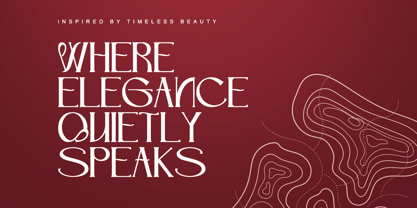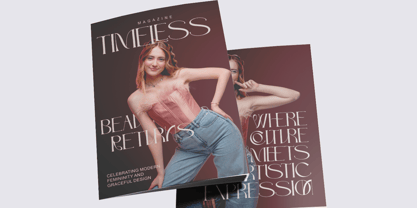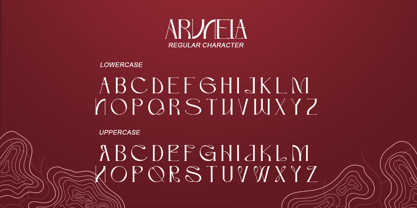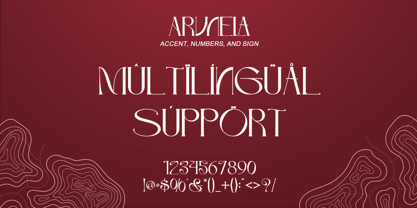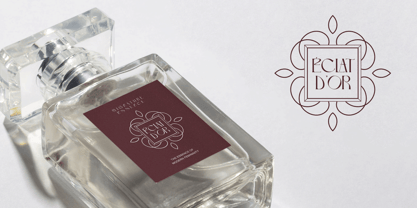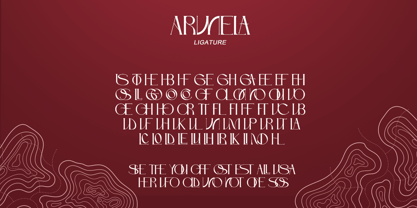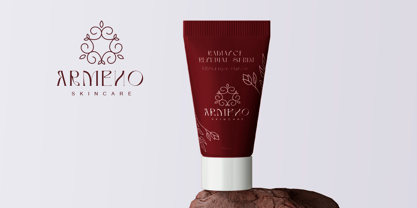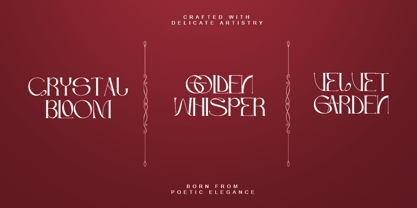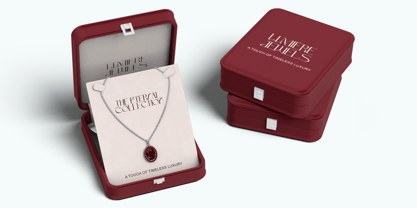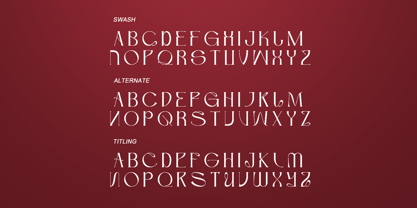
Arunela
by Letterara
The Arunela Font Family was designed by Thomas Aradea and published by Letterara. Arunela contains 2 styles and family package options. More about this family
Arunela is an elegant luxury display serif designed to bring sophistication, clarity, and artistic character into modern typography. With its refined letterforms, graceful curves, and balanced serif structure, this typeface creates a strong visual presence that feels timeless, professional, and distinctive, making it an excellent choice for premium branding, editorial design, packaging, corporate identity, and high-end visual presentations that require both beauty and authority.
Designers: Thomas Aradea
Foundry: Letterara